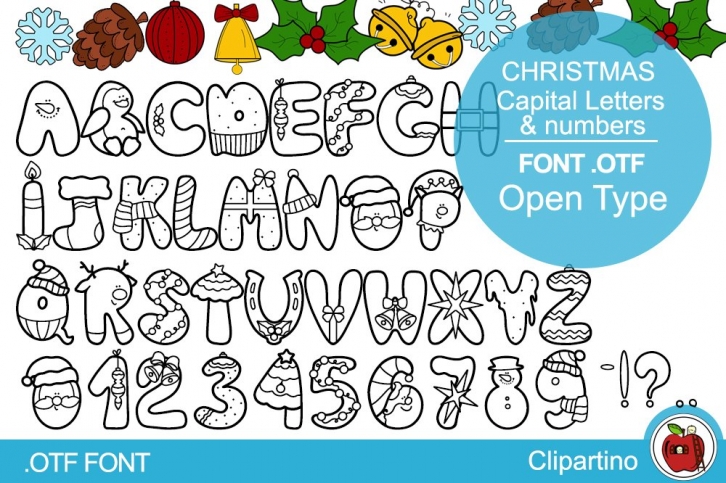
Christmas Open Type-Capital Letters & numbers-Winter is a beautiful font that was designed by Clipartino. It's a great choice for designers and creatives who need such a font. It was released on July 31, 2021 and the file size is 18.48 MB. Christmas Open Type-Capital Letters & numbers-Winter may give a more youthful, expressive and casual look to your project. It is a very beautiful, refined, elegant, and high-quality font.